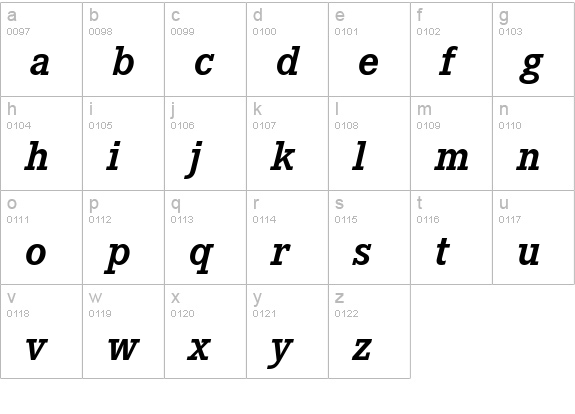
Corporate E Bold Italic Font Details
Corporate E Bold Italic is a strong, high-contrast, italic variant in the Corporate typeface family \xE2\x80\x94 well suited to headlines, attention-grabbing titles, and strong calls-to-action.
Corporate E Bold Italic is a sleek and modern font designed for corporate and business use. Its bold and italic style exudes professionalism and sophistication, making it perfect for branding, presentations, and marketing materials. The font features clean lines and sharp edges, giving it a contemporary and polished look. And the best part? Corporate E Bold Italic is available for free download at FontsMarket.com! This means you can elevate your design projects without breaking the bank. Don't miss out on this opportunity to enhance your visual communication with this elegant and versatile font. Download Corporate E Bold Italic today and take your designs to the next level.